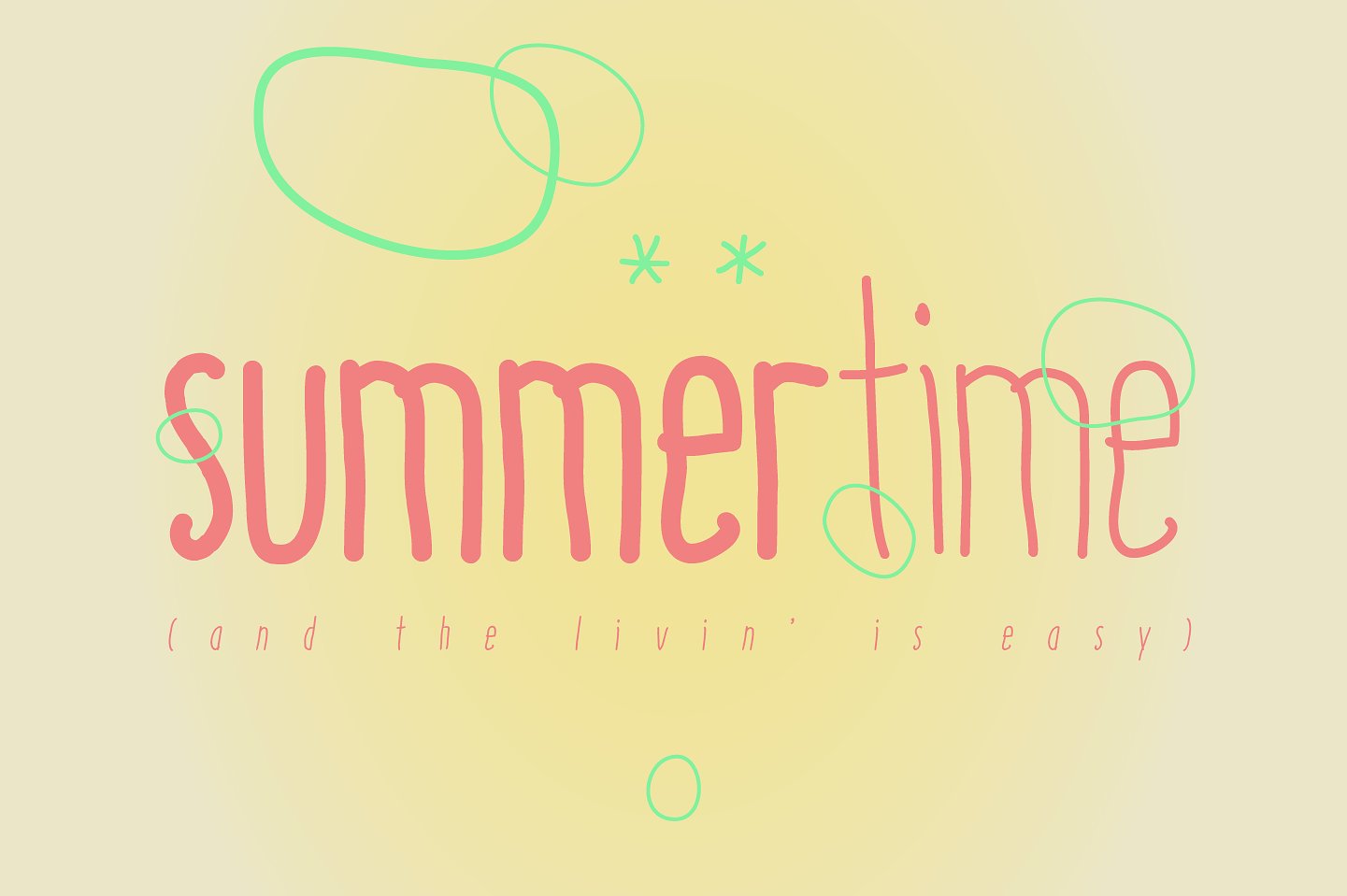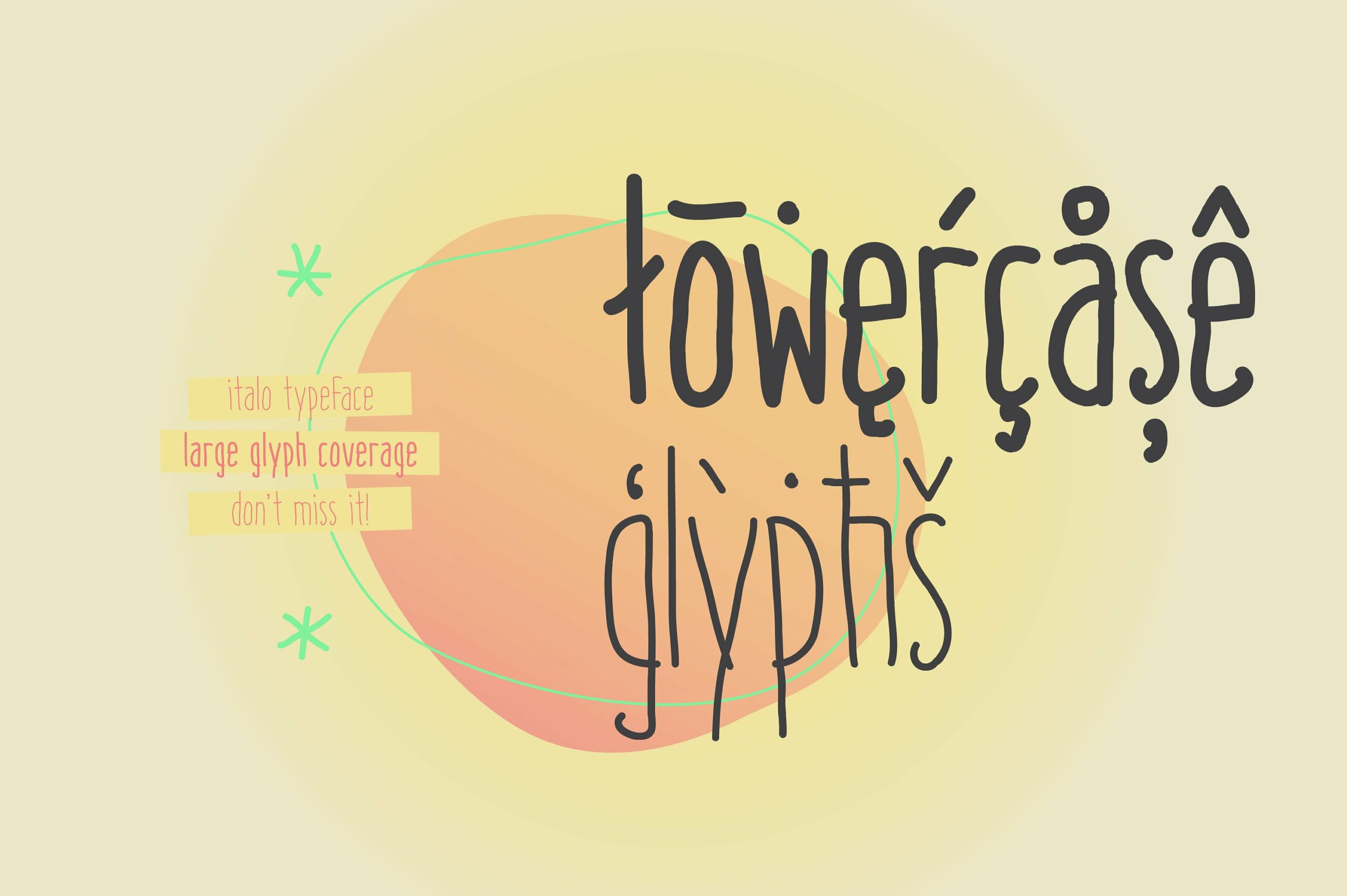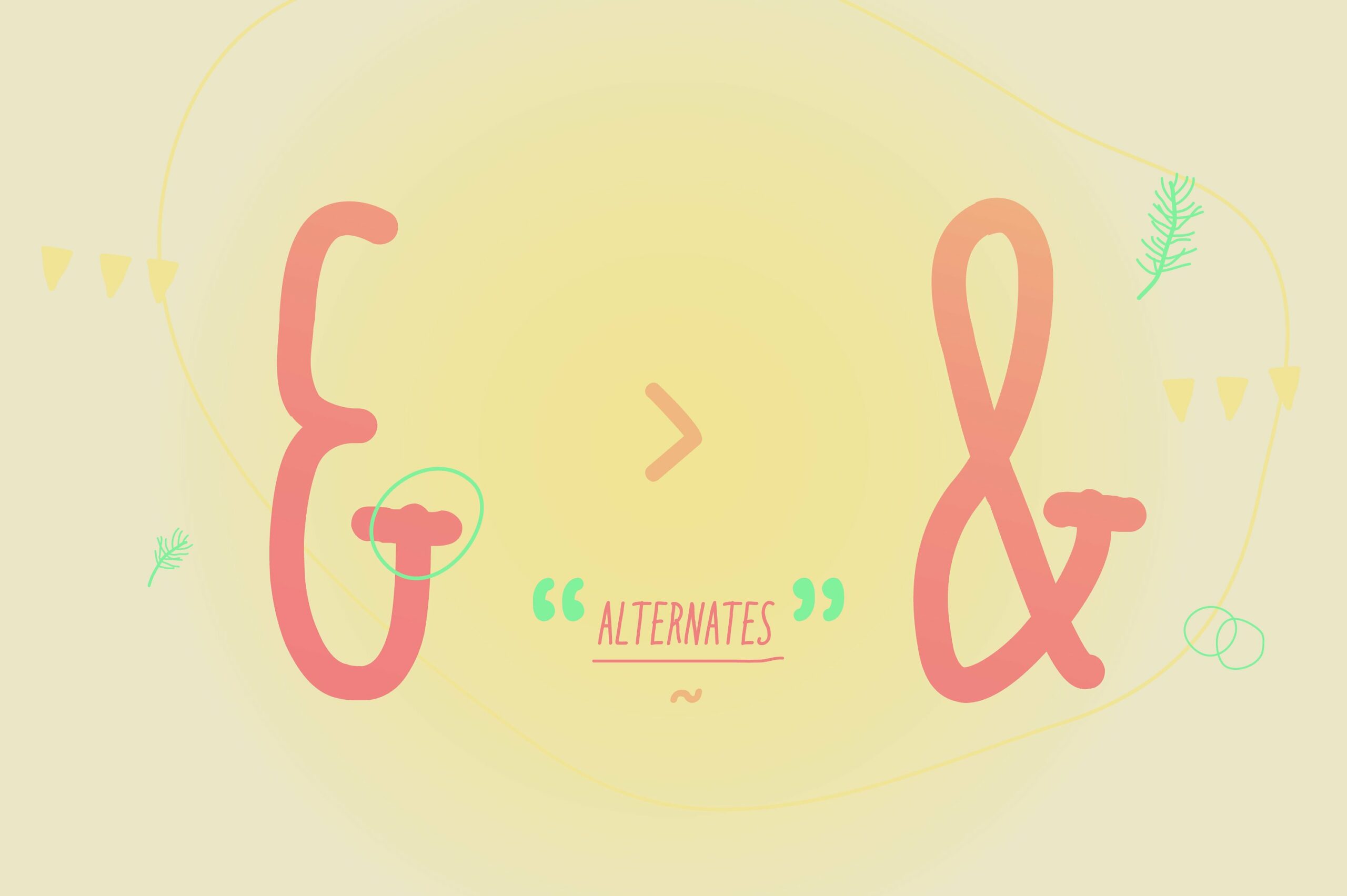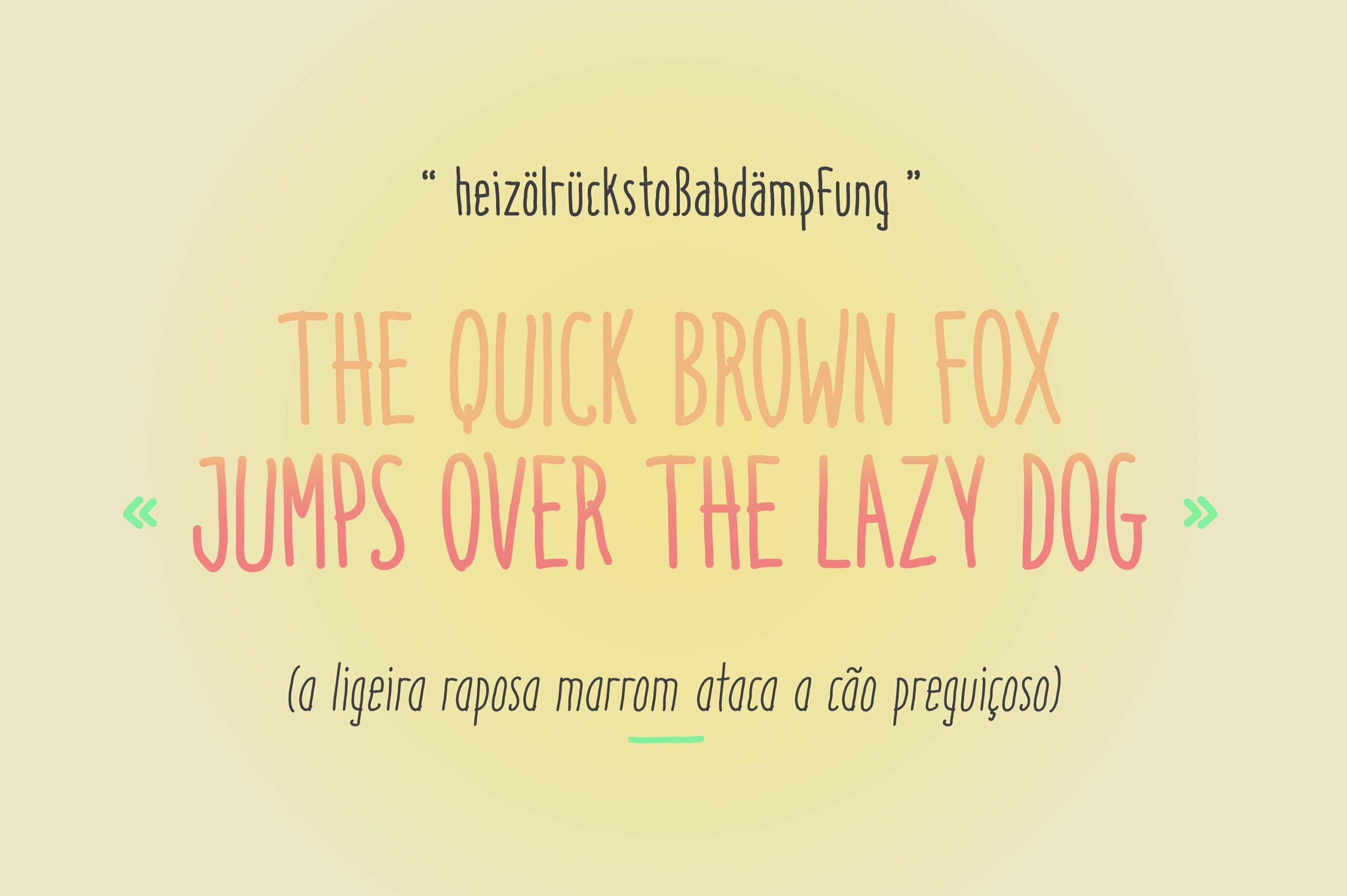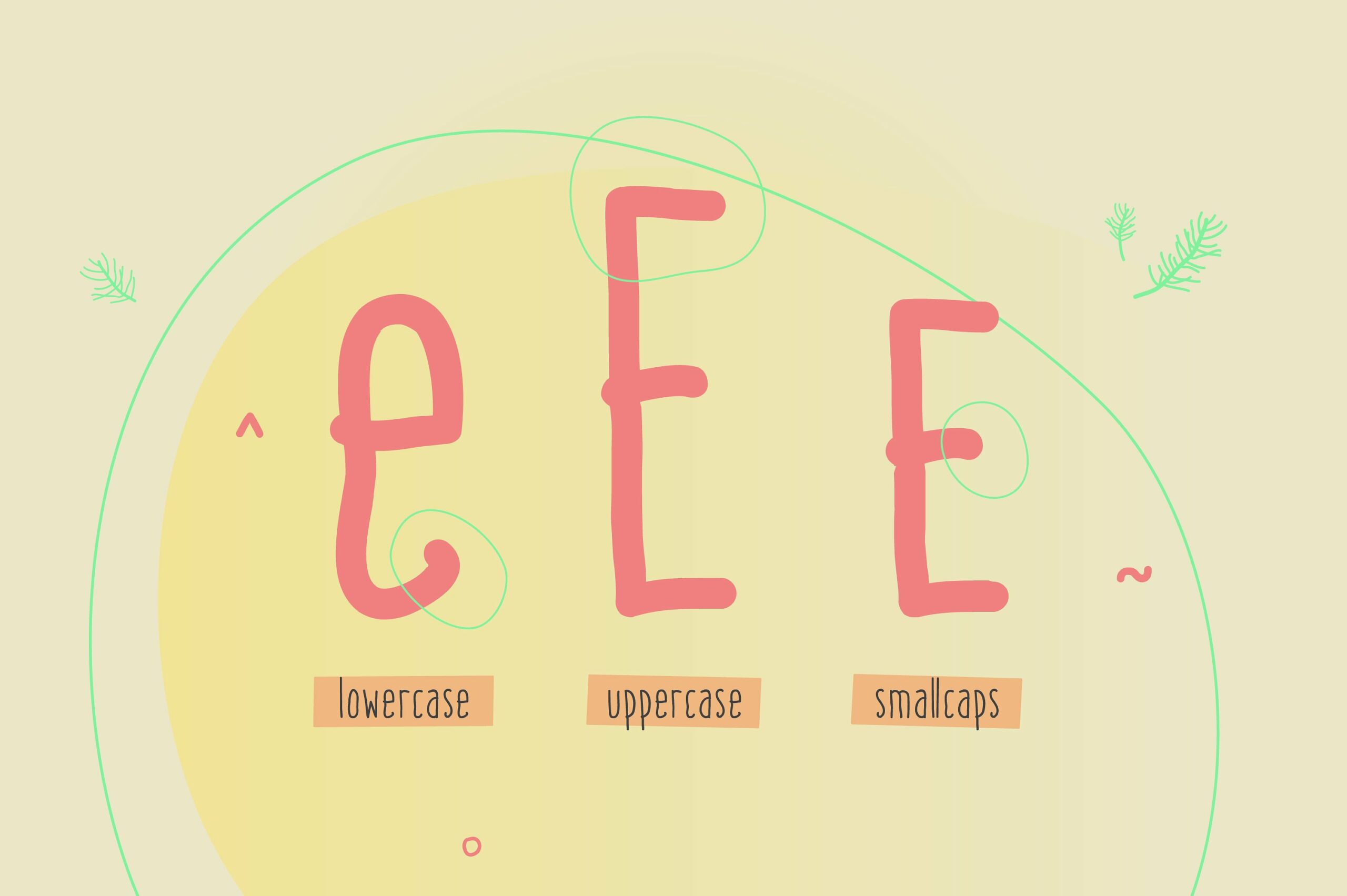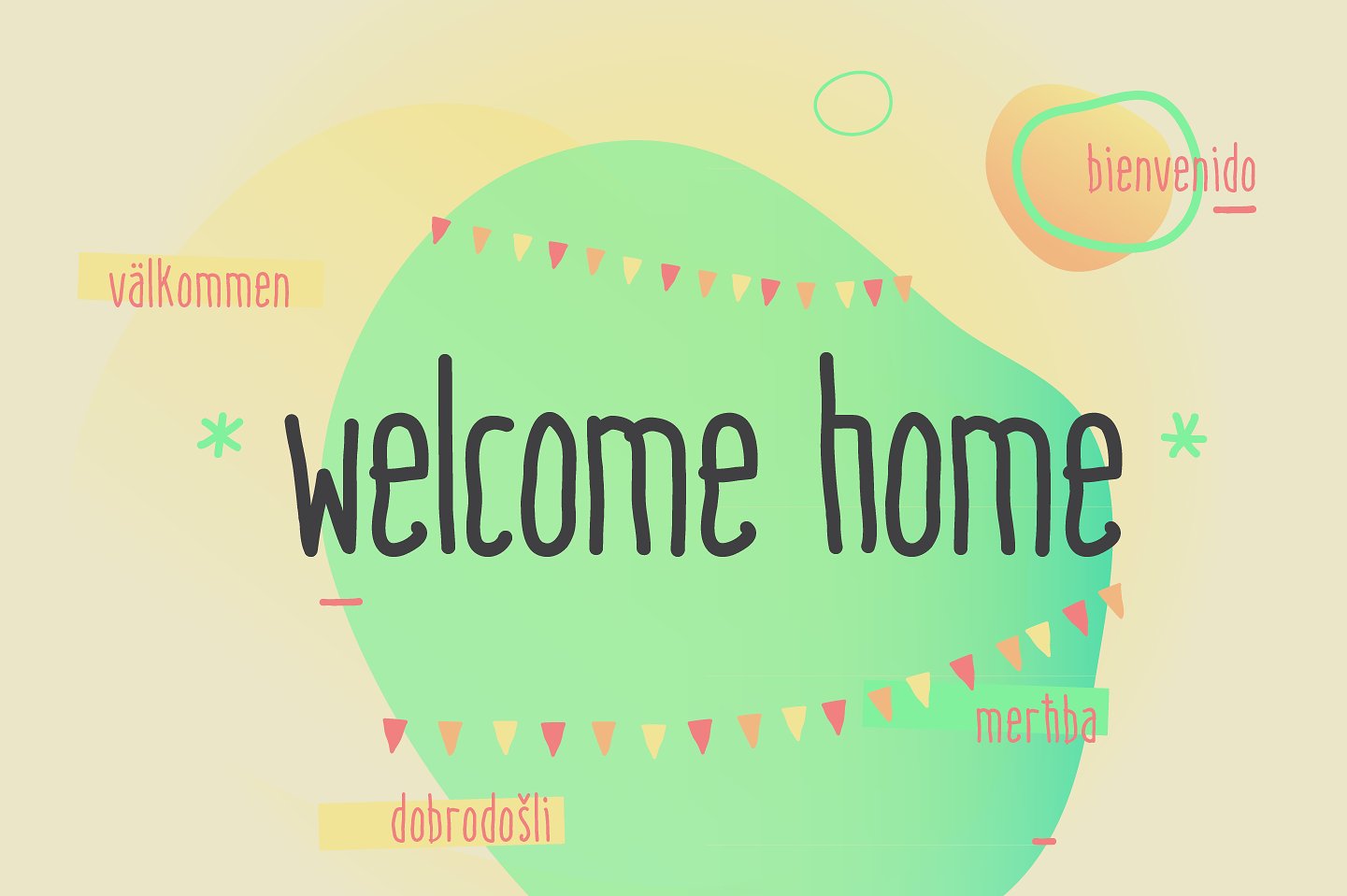
Italo Font
About Italo Font
Italo is a beautiful and relaxed friendly sans serif font; this informal font can provide a cute, handwritten look to your work! This is a great font option for use in headlines and body text.